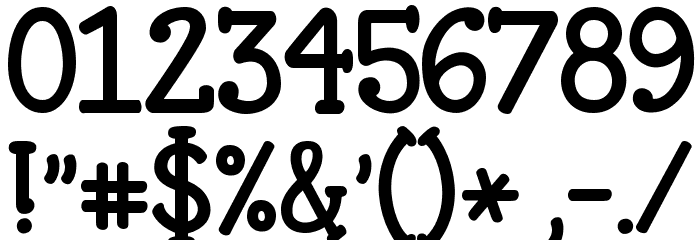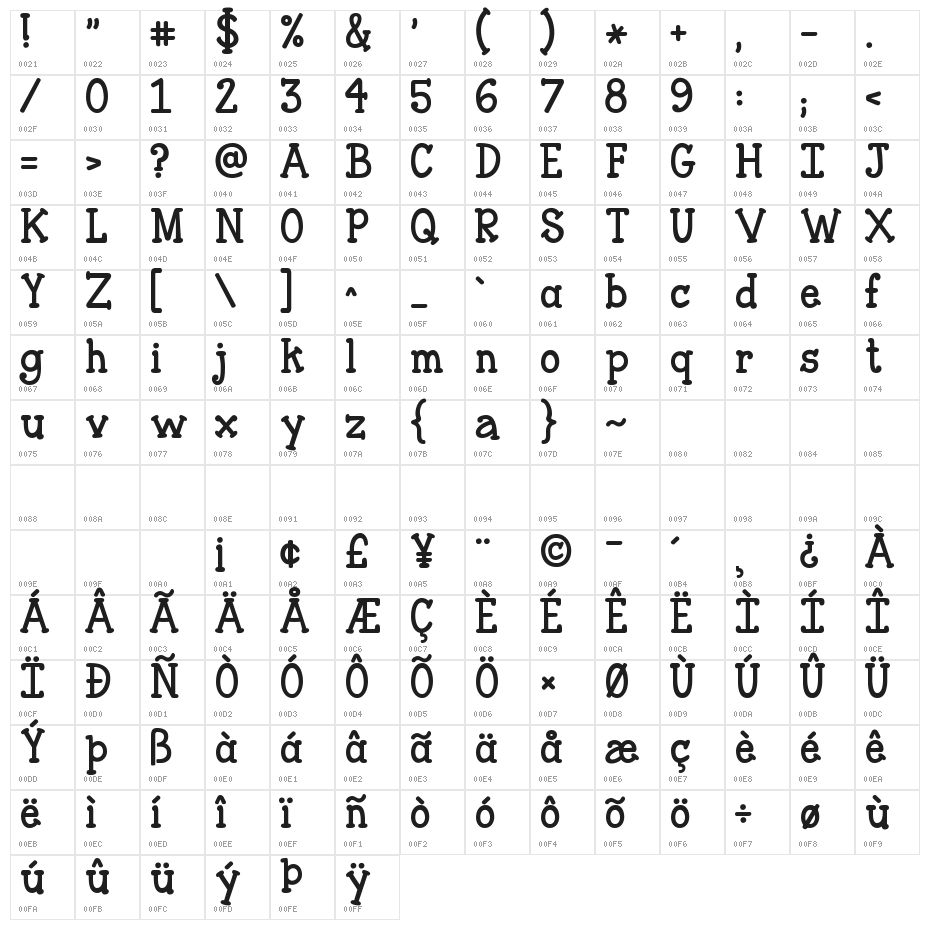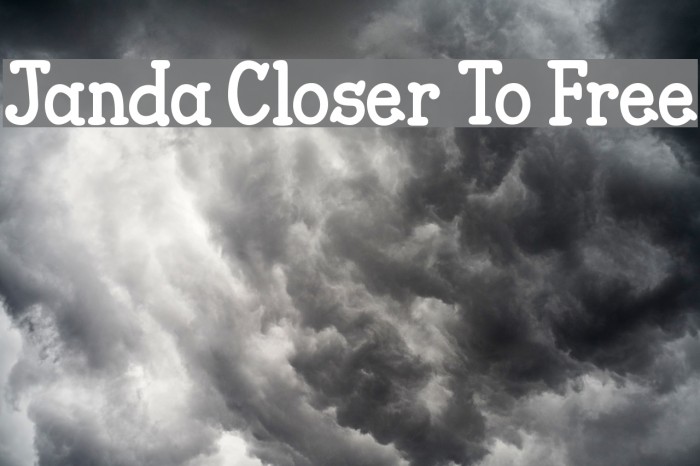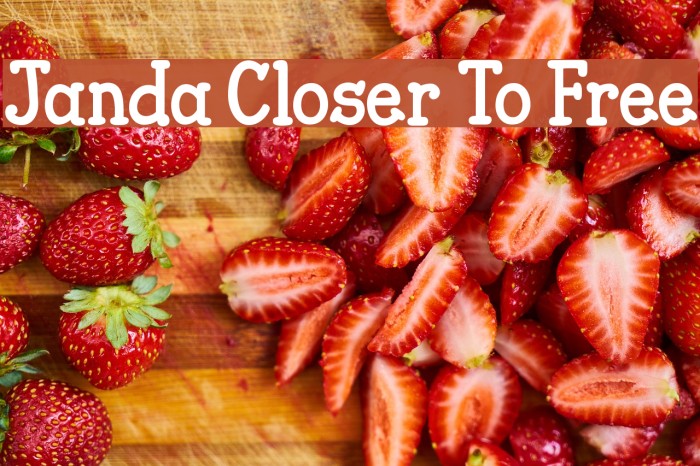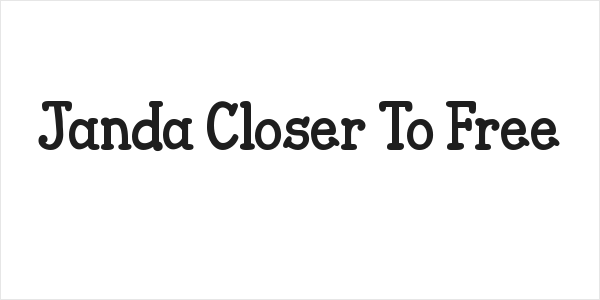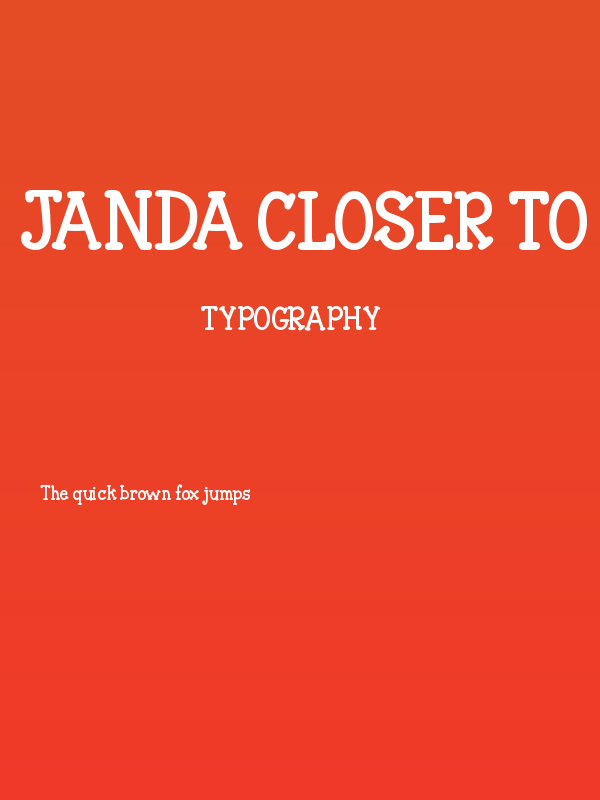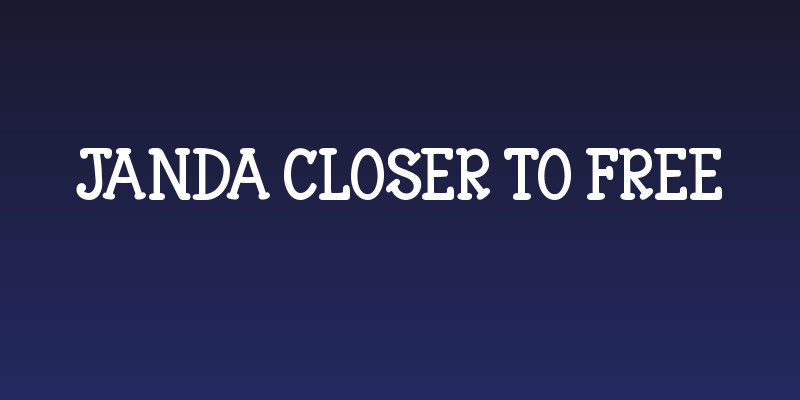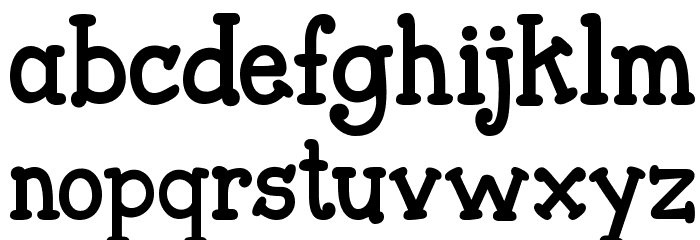
Janda Closer To Free Font
Janda Closer To Free Description
This font features a playful and rounded style with a friendly and approachable appearance. The characters are bold and have a whimsical touch, with rounded edges and a slightly bouncy baseline. The uppercase letters are uniform in height, while the lowercase letters maintain a consistent x-height, contributing to its readability. The numerals are clear and distinct, matching the overall playful aesthetic. Special characters are well-integrated, maintaining the font's cohesive look. This font's unique style makes it suitable for creative and informal applications.
| Proposed Projects | Ideal for children's books, playful branding, greeting cards, and informal invitations. |